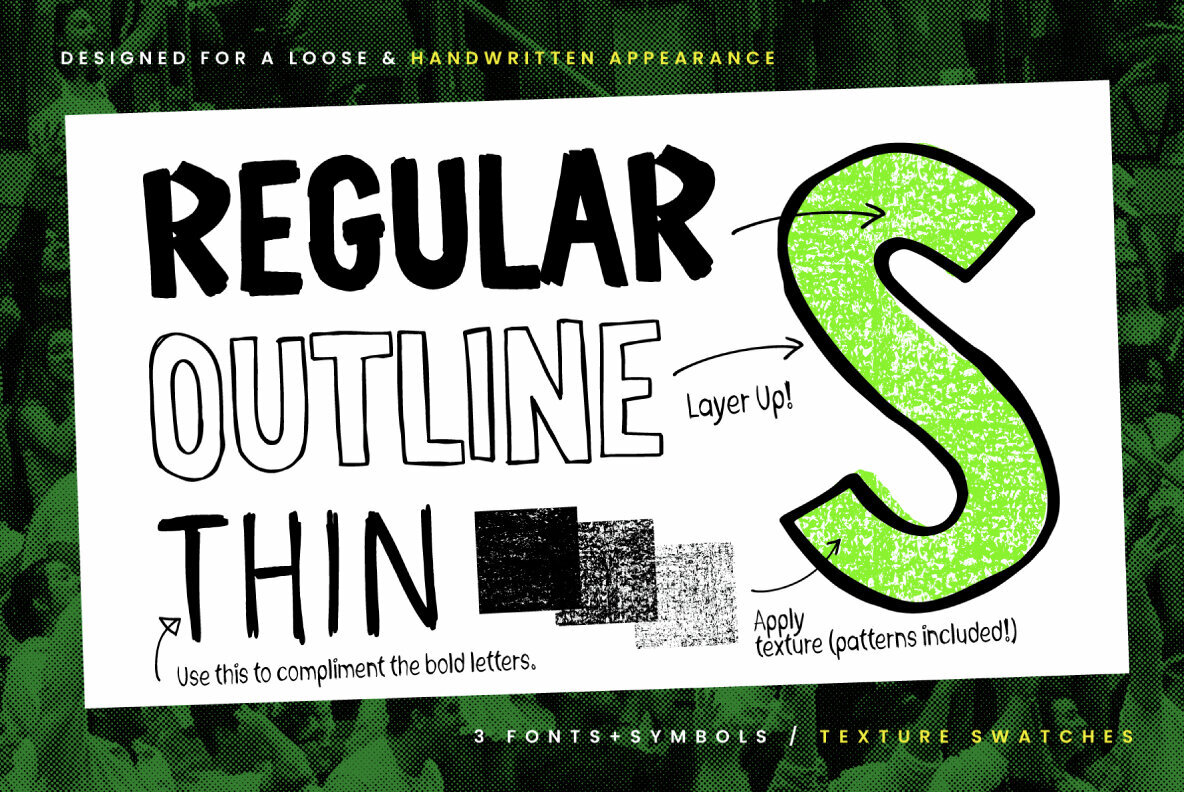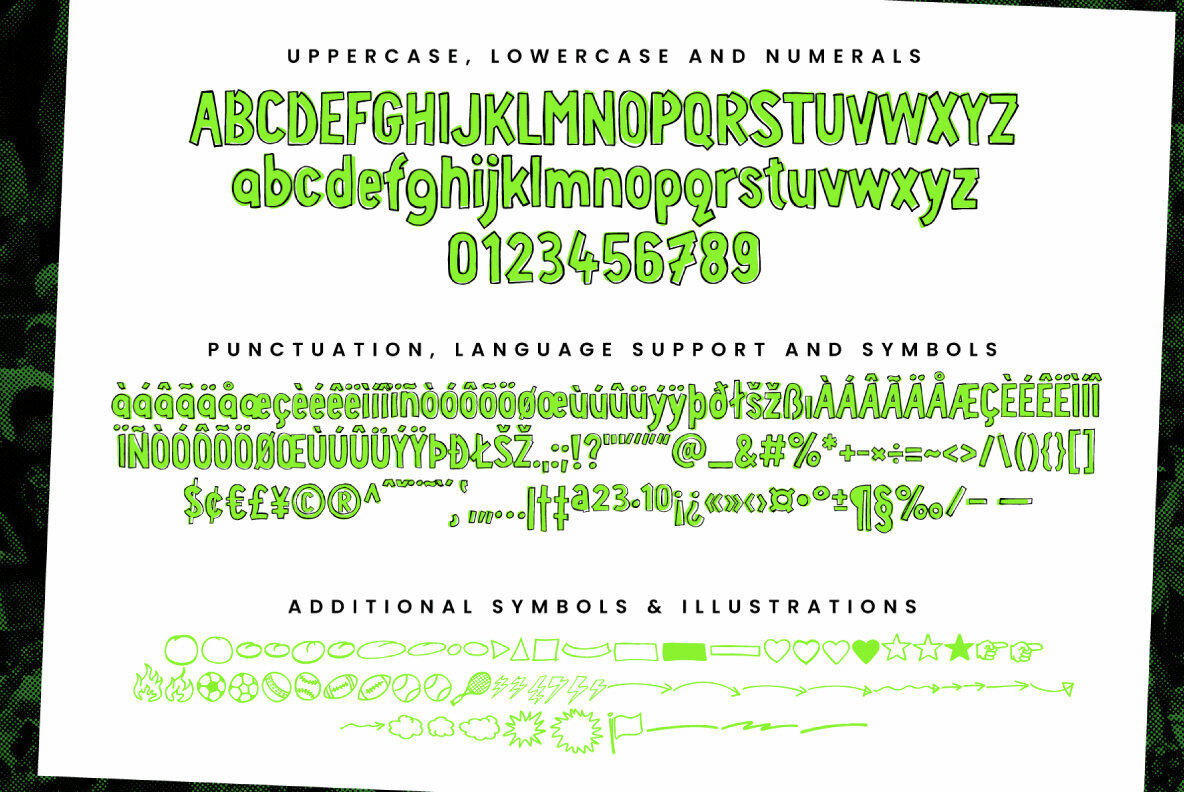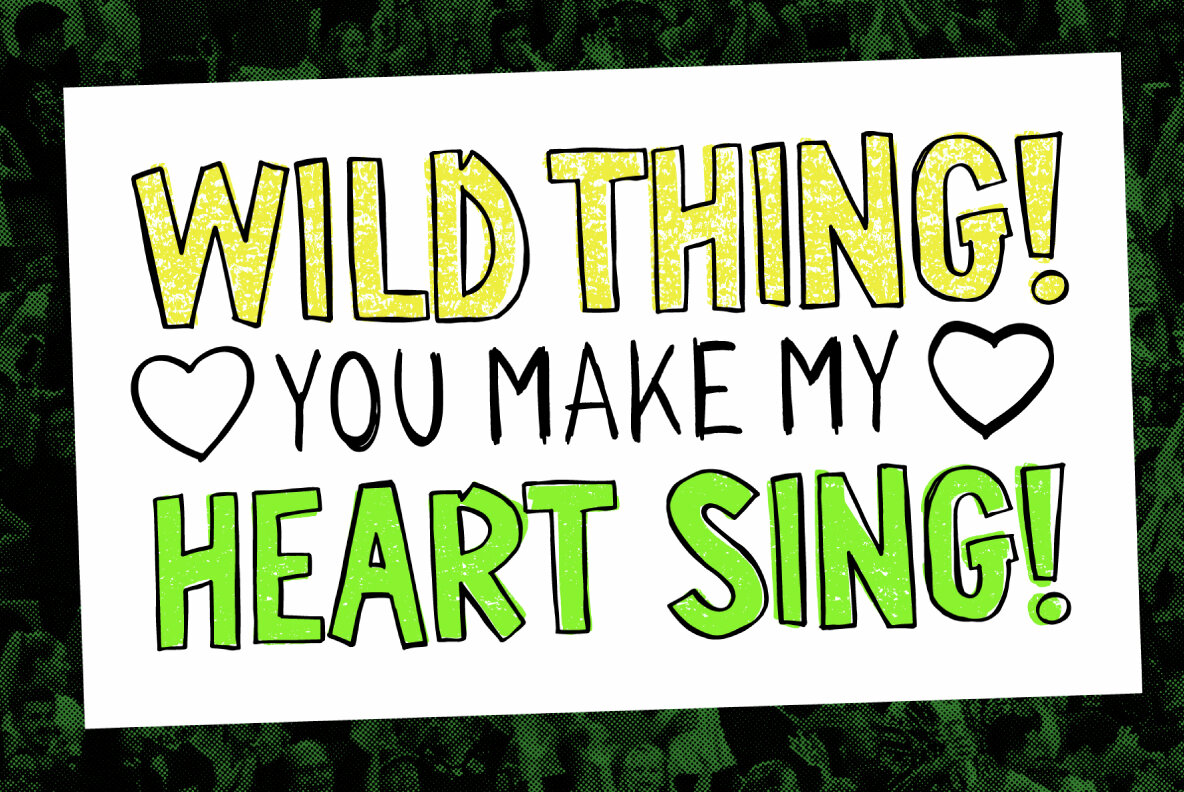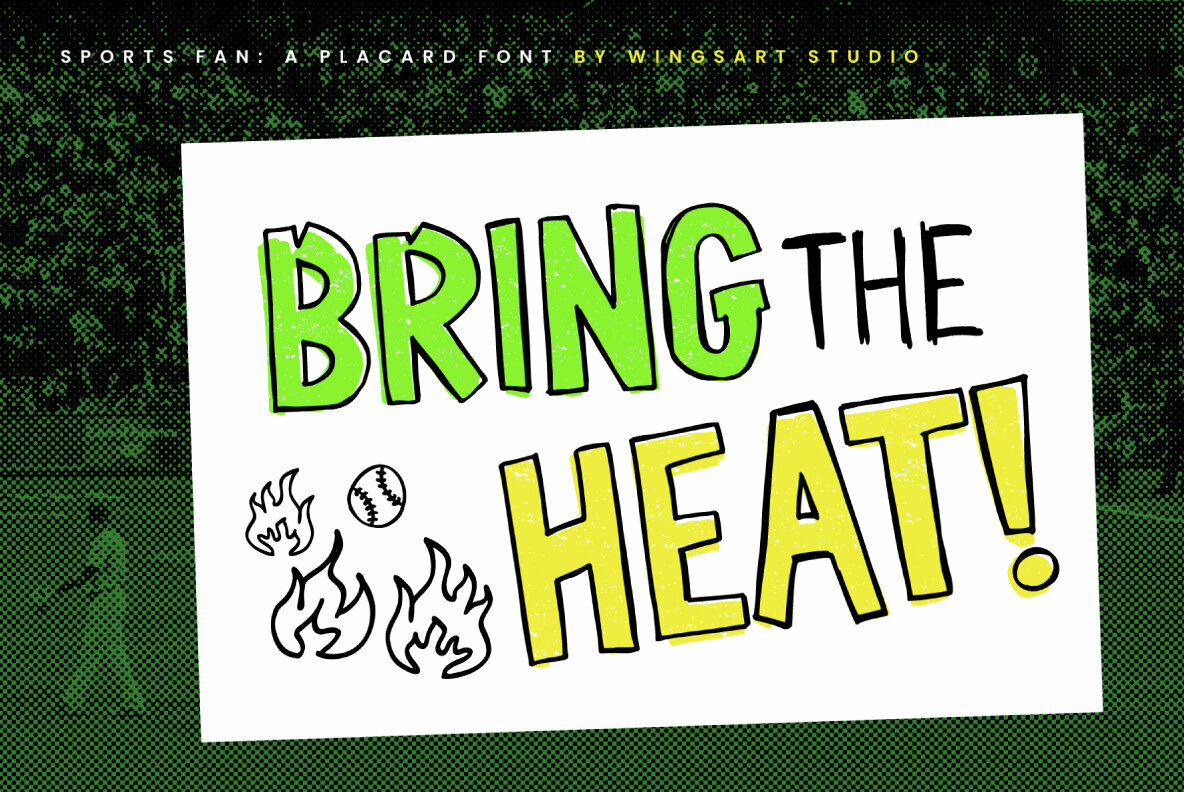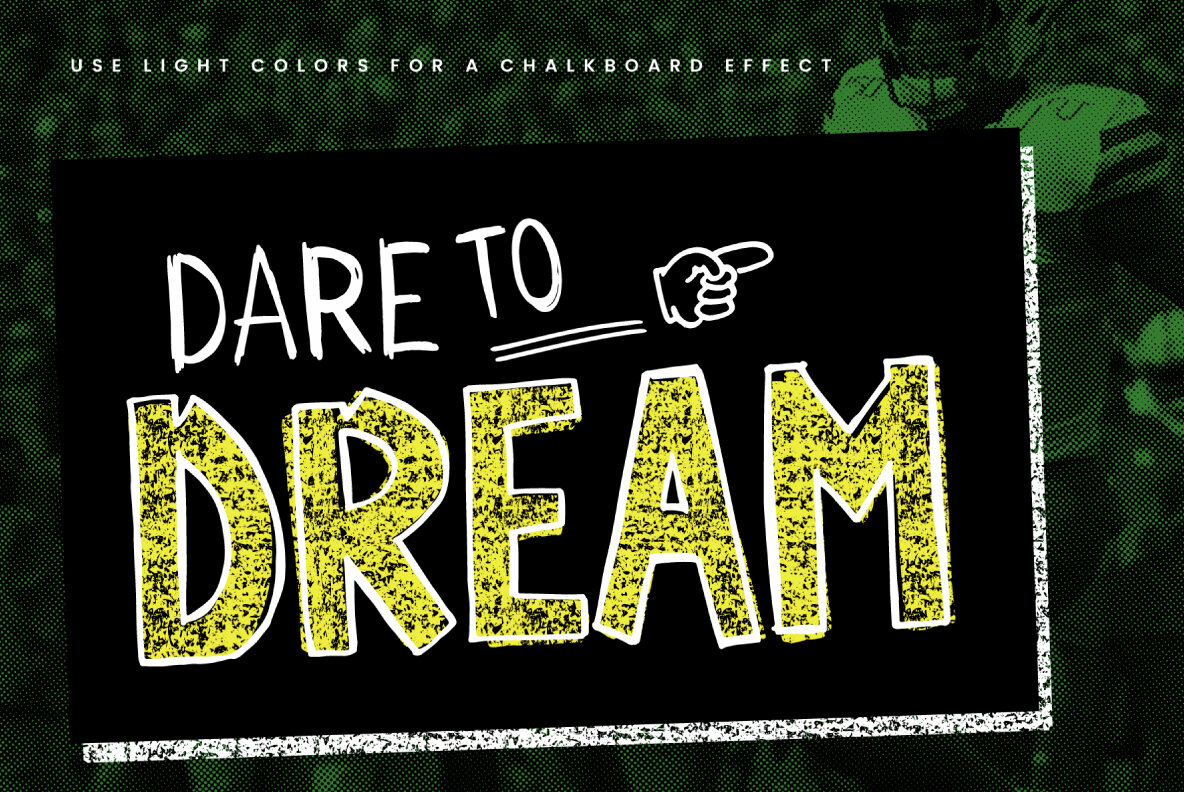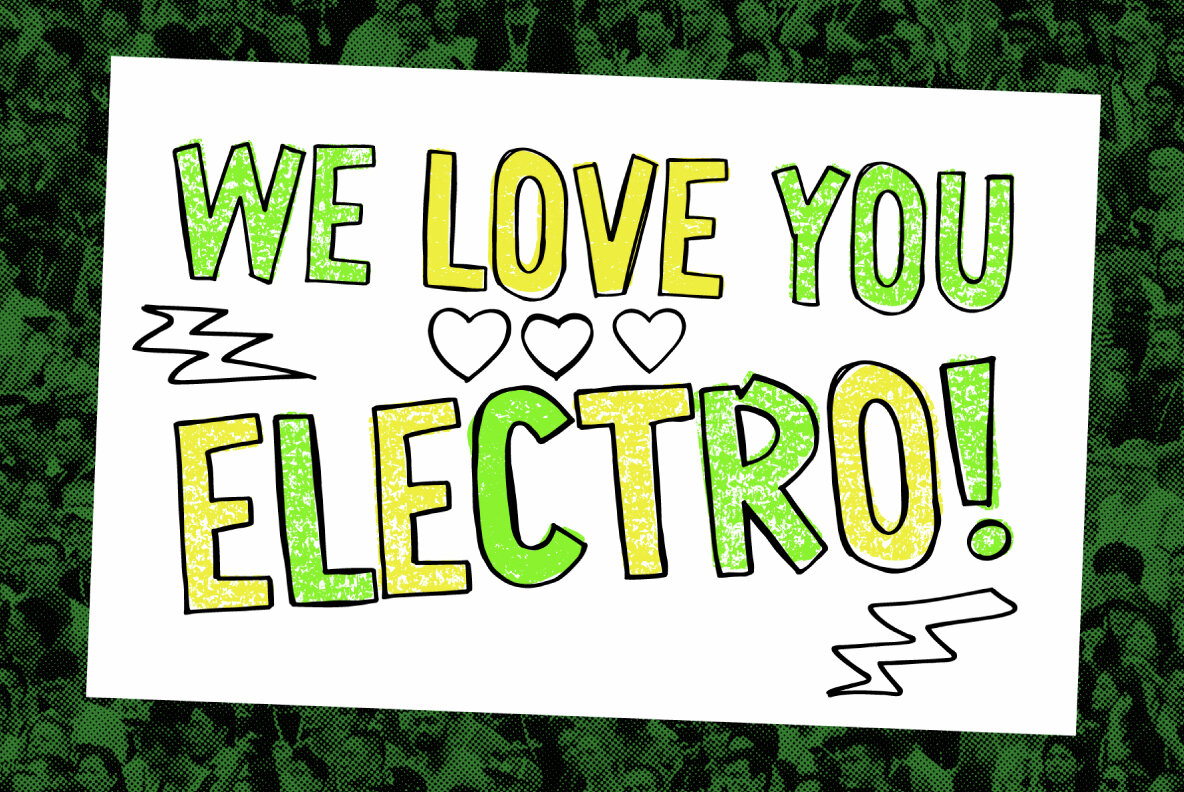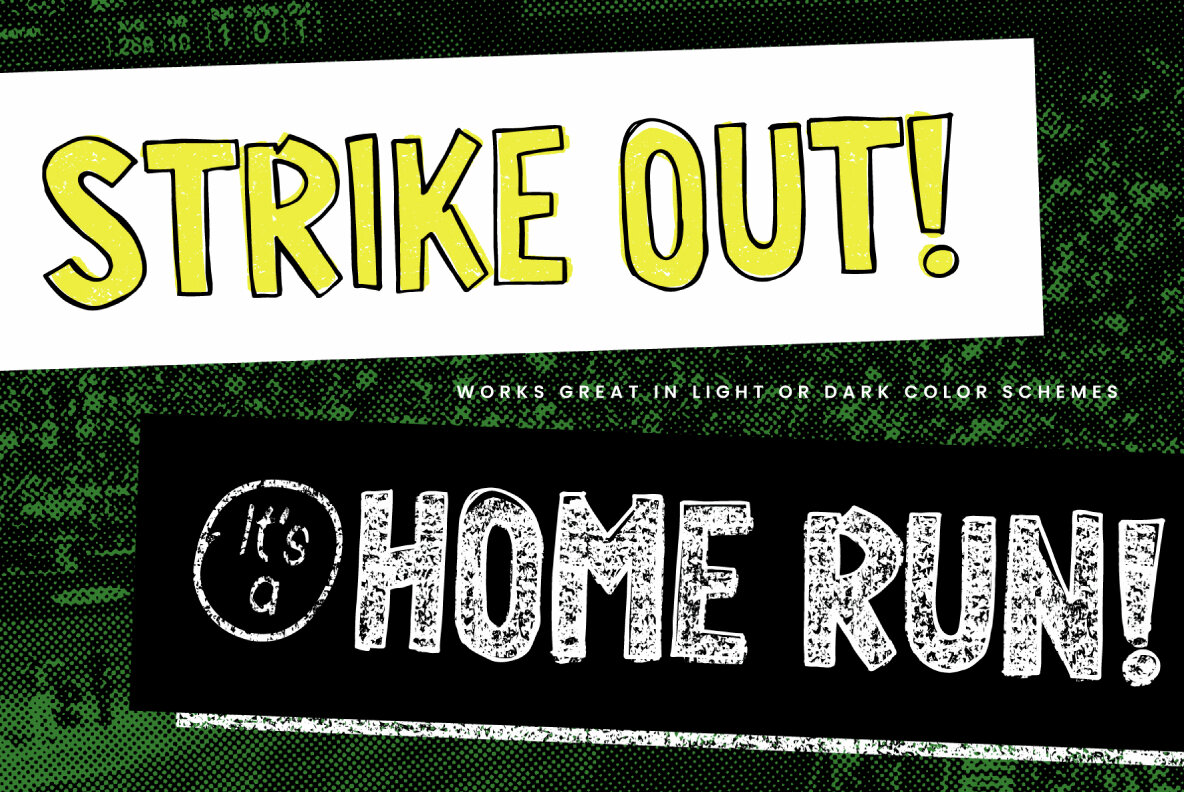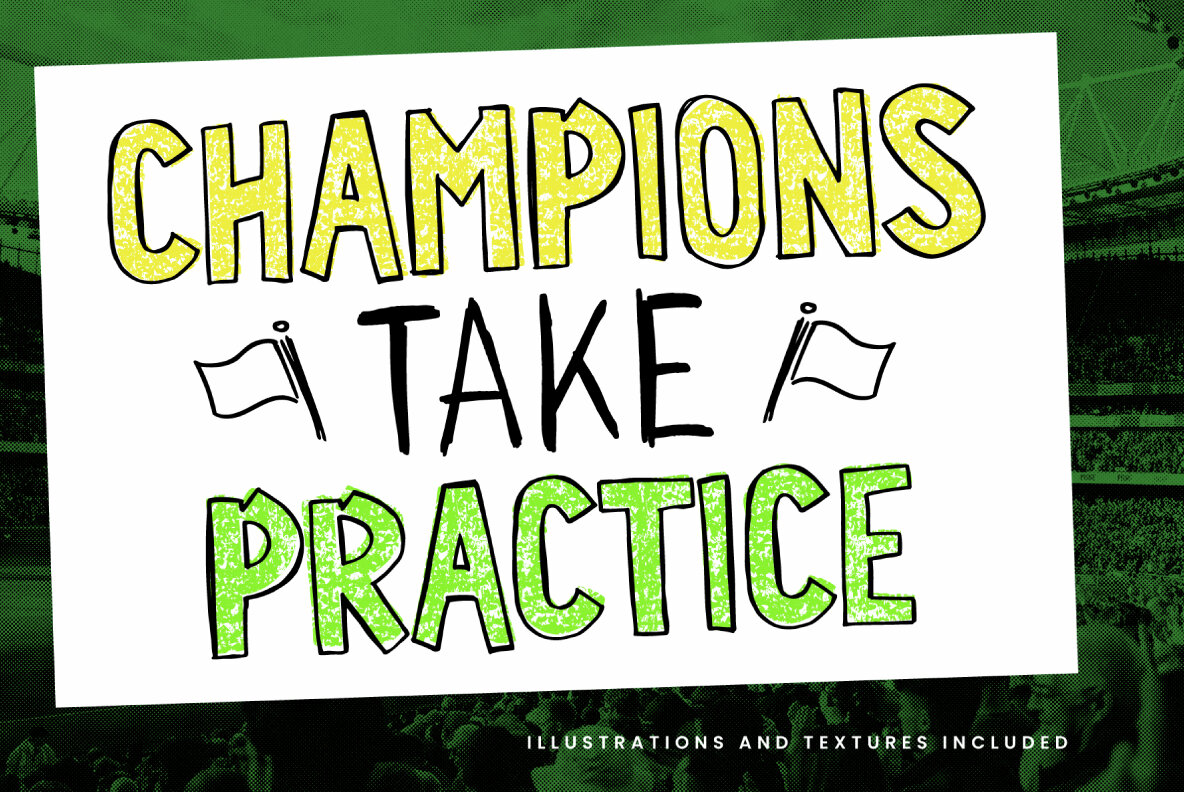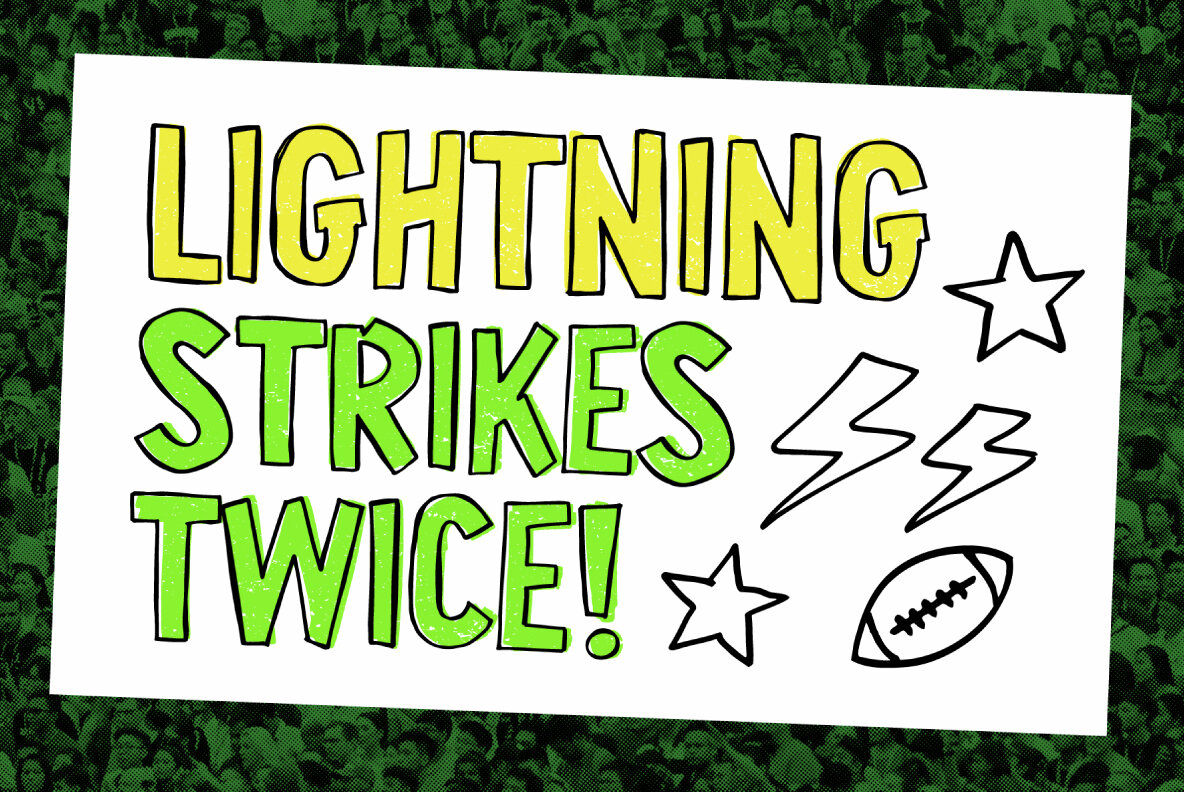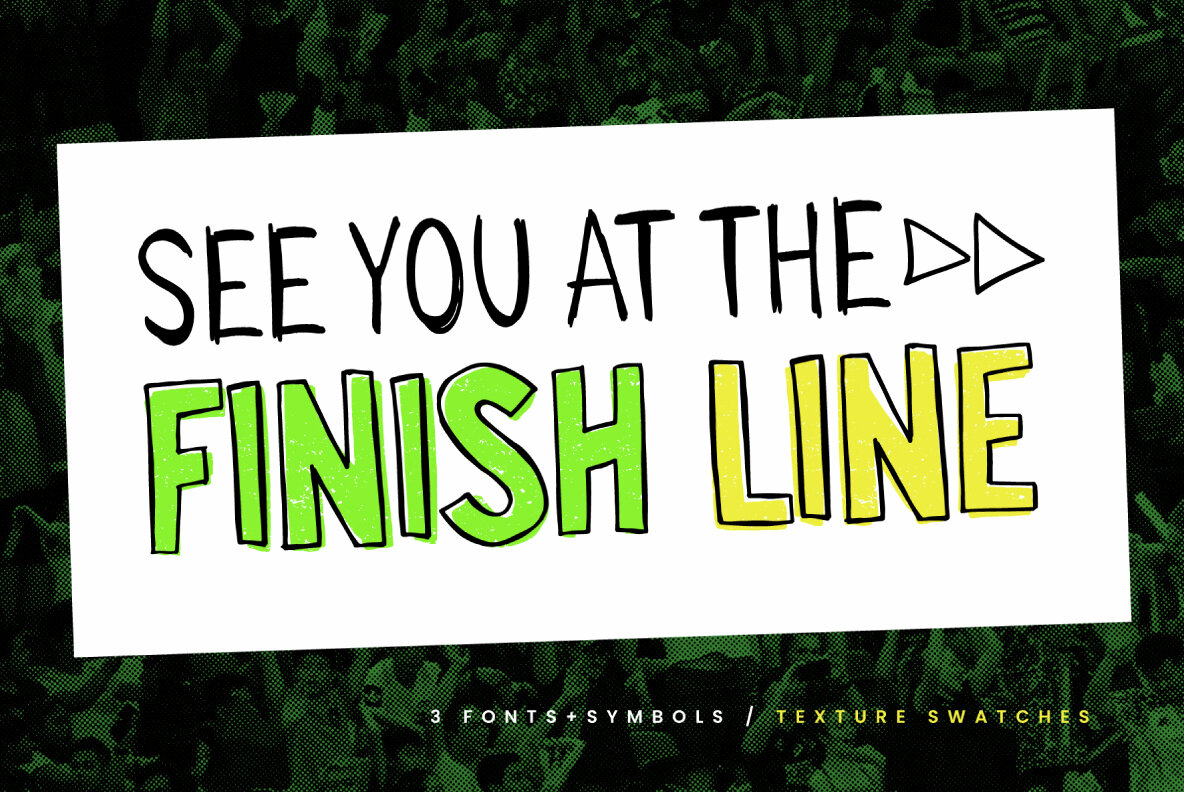
Sports Fan Font
Get ready for game day with this handwritten font, designed to replicate the look of stadium placards and their motivational messages from enthusiastic fans. Boasting an almost childlike look while remaining highly legible, the Sports Fan font family includes three styles - starting with the Regular (suitable for any project that requires a formal, but analogue look), the Outline, which adds a loose fitting hand-drawn appearance, and Thin, for secondary text. Combine these with the additional illustrations and crayon textures, and you have the tools to create championship winning slogans. I’ve designed it to be a playful font that encourages you to experiment with layering up each style, plus the optional textures are ready and waiting when you need them. It works great when you invert the colours too, offering a more chalkboard-like finish. Check out the visuals for my own usage suggestions. The Sports Fan font family includes a complete set of uppercase and lowercase characters, along with numerals, punctuation, symbols and language support. It also comes with selection of underlines and sports themed illustrations, plus crayon textures in three degrees of thickness. These textures are supplied as repeatable pattern swatches, compatible with Adobe Photoshop and Illustrator CS1 and above. Rasterised versions are all supplied in JPG and PNG formats. Enjoy!